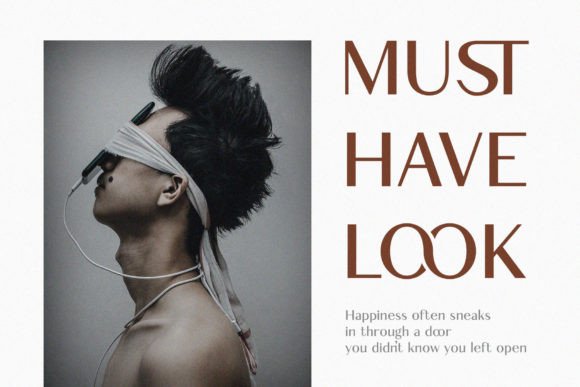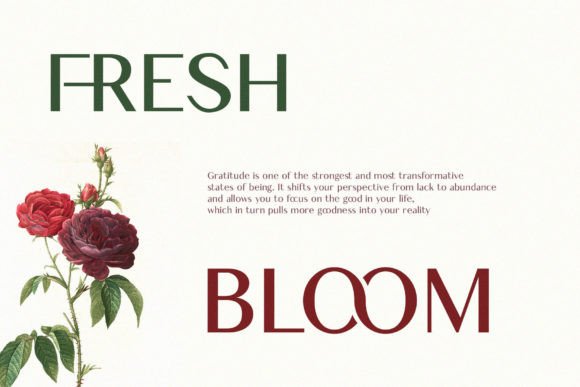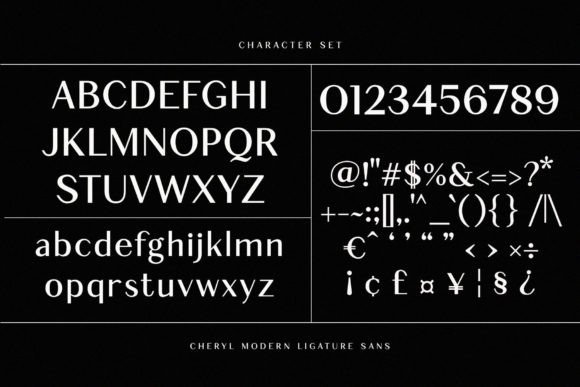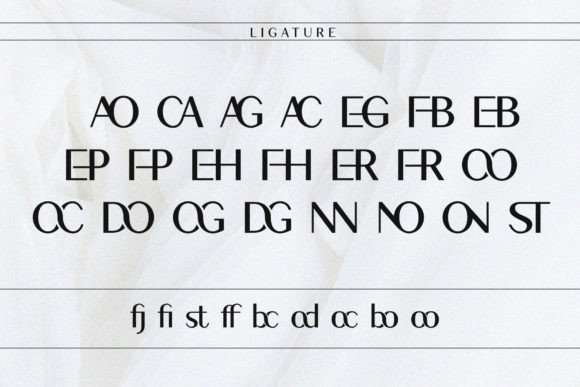
Introducing Cheryl Font: The Epitome of Modern Sans Serif Elegance
In the realm of typography, fonts play a pivotal role in conveying messages, evoking emotions, and establishing brand identities. Among the myriad of fonts available, Cheryl Font stands out as a beacon of modernity and simplicity. This article delves into the characteristics, benefits, and applications of Cheryl Font, a modern sans serif font that has been gaining traction among designers and crafters alike.
The Design Philosophy of Cheryl Font
Cheryl Font is a testament to the power of minimalism in design. Its clean and minimalistic letterforms are crafted with a balanced mix of curves and straight lines, which confers a sense of clarity and precision. This thoughtful design approach makes Cheryl Font incredibly versatile, suitable for a wide range of applications, from branding and advertising to web design and digital media.
Key Features of Cheryl Font
- Modern Sans Serif Design: Cheryl Font boasts a contemporary sans serif design that is both sleek and sophisticated.
- Clean and Minimalistic: The font’s clean lines and minimalistic aesthetic make it perfect for projects that require a touch of elegance and simplicity.
- Balanced Mix of Curves and Straight Lines: This balance gives Cheryl Font its unique character, making it both visually appealing and highly legible.
- PUA Encoded: Cheryl Font is PUA (Private Use Area) encoded, which means that users can access all the glyphs and ligatures with ease, offering greater flexibility in design.
Applications of Cheryl Font
The versatility of Cheryl Font makes it an excellent choice for various design projects. Here are some of the areas where Cheryl Font truly shines:
- Branding: Cheryl Font’s modern and clean design makes it perfect for branding projects, helping to establish a strong and contemporary brand identity.
- Web Design: The font’s legibility and aesthetic appeal make it an excellent choice for web design, enhancing the user experience and adding a professional touch to websites.
- Digital Media: Whether it’s for social media graphics, digital advertising, or email marketing, Cheryl Font can help elevate your digital content with its sleek and modern look.
- Crafting and DIY Projects: For crafters and DIY enthusiasts, Cheryl Font offers a wide range of creative possibilities, from custom signage to handmade cards and invitations.
Benefits of Using Cheryl Font
Choosing Cheryl Font for your design projects comes with several benefits:
- Enhanced Readability: The clean and simple design of Cheryl Font ensures high readability, making it perfect for both digital and print media.
- Modern Appeal: Cheryl Font adds a touch of modernity to any project, making it more engaging and visually appealing.
- Versatility: The font’s versatility means it can be used across various design projects, from professional branding to personal crafting projects.
- Easy to Use: Being PUA encoded, Cheryl Font is easy to use, allowing designers to access a wide range of glyphs and ligatures without any hassle.
Cheryl Font is a modern sans serif font that embodies simplicity, functionality, and elegance. Its clean and minimalistic design, coupled with its versatility and ease of use, makes it an excellent choice for designers and crafters looking to add a touch of modernity to their projects. Whether you’re working on branding, web design, or crafting, Cheryl Font is sure to meet your typographic needs, elevating your designs to new heights of sophistication and appeal.
In the ever-evolving world of design, fonts like Cheryl Font play a crucial role in shaping the visual identity of brands and projects. By incorporating Cheryl Font into your design toolkit, you’re not just choosing a font; you’re embracing a design philosophy that values clarity, simplicity, and modernity. So, go ahead and explore the possibilities with Cheryl Font – your next design project deserves it.